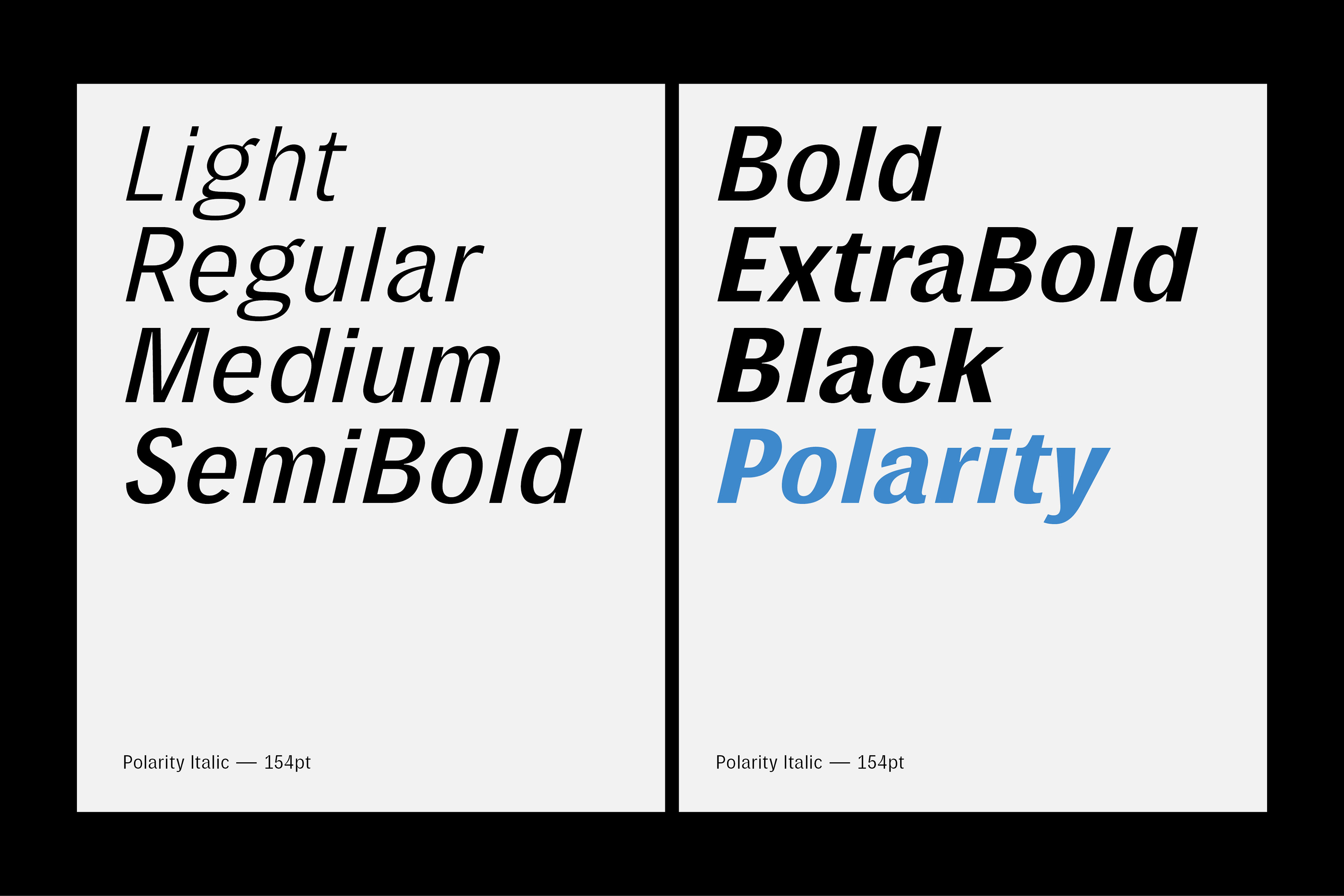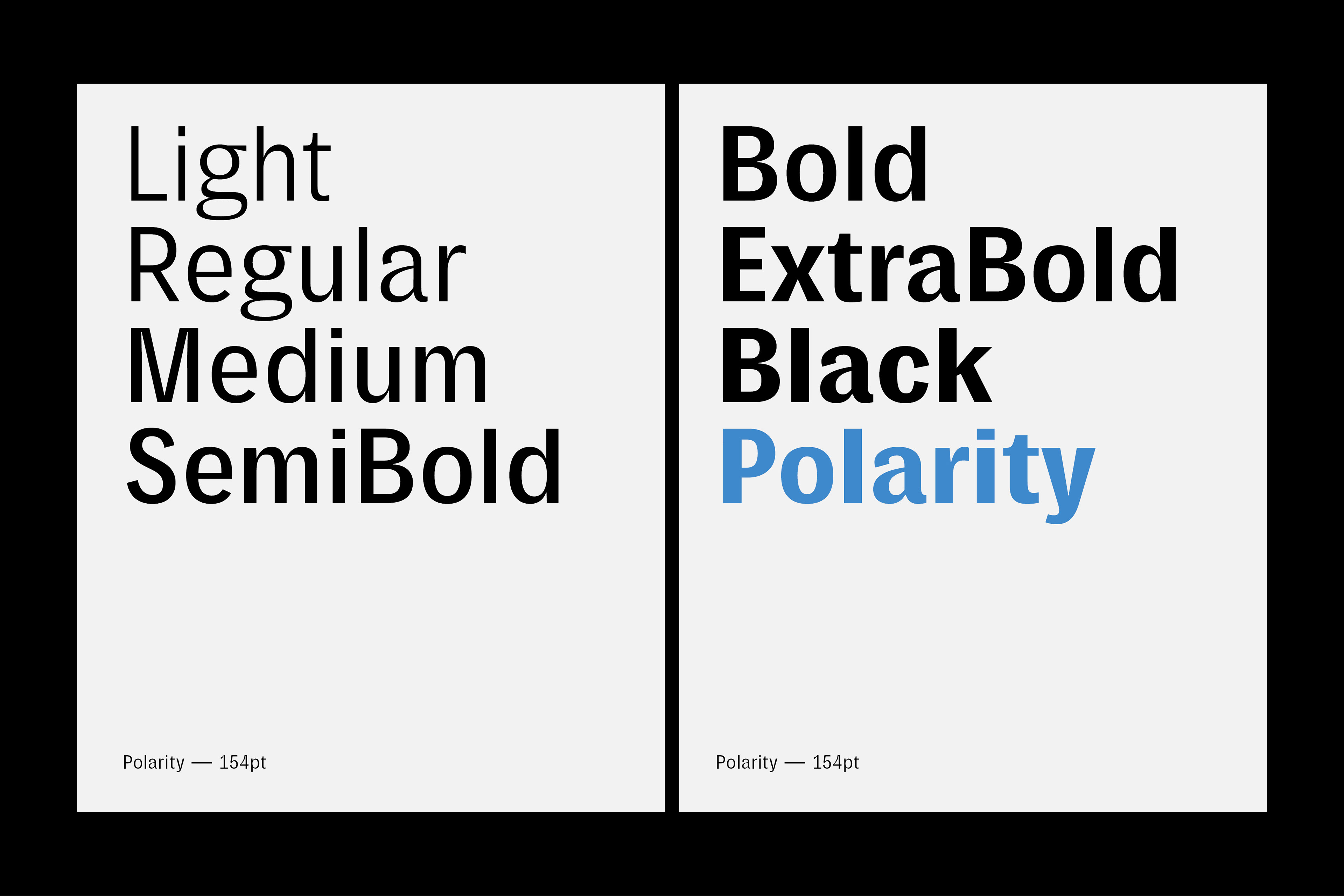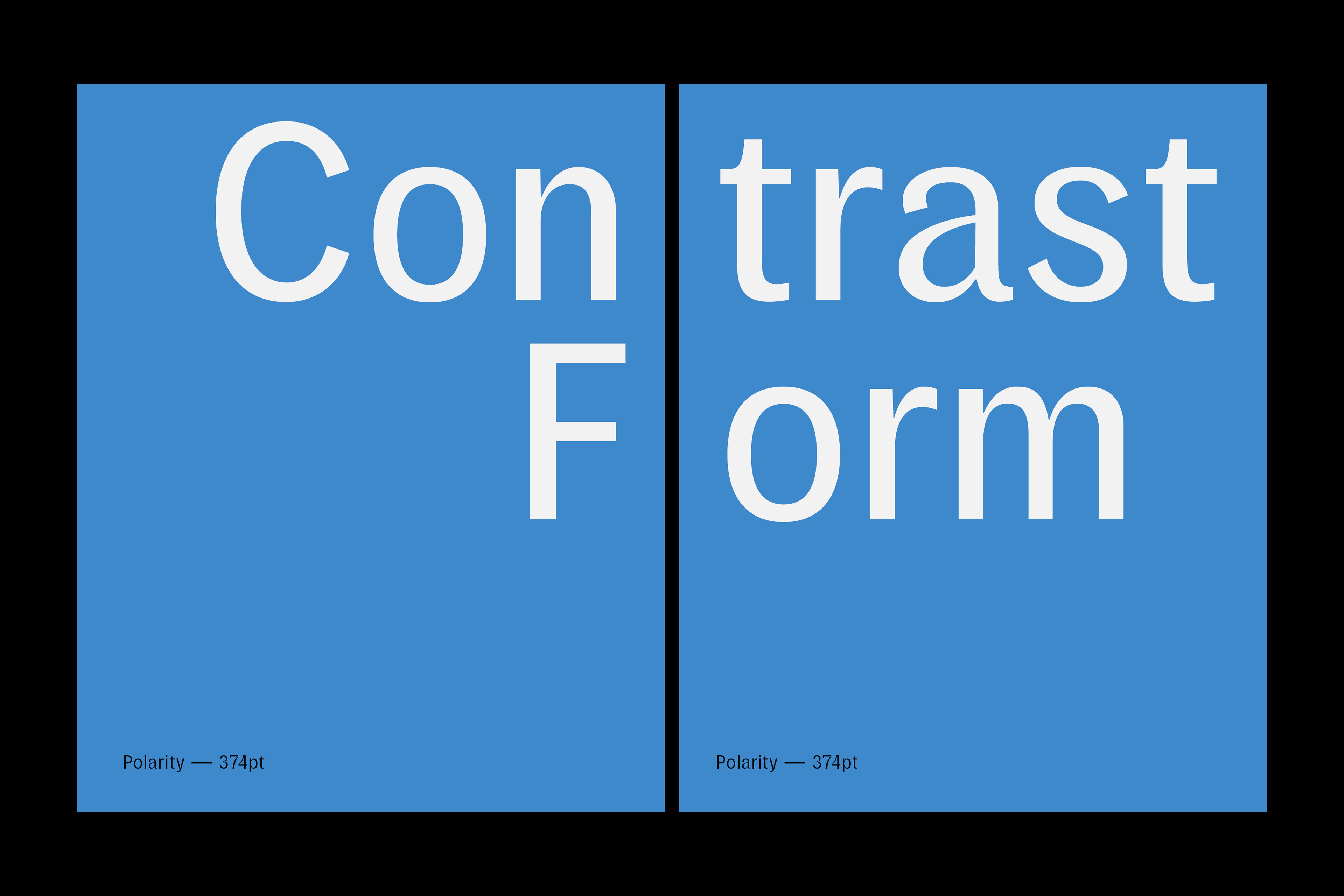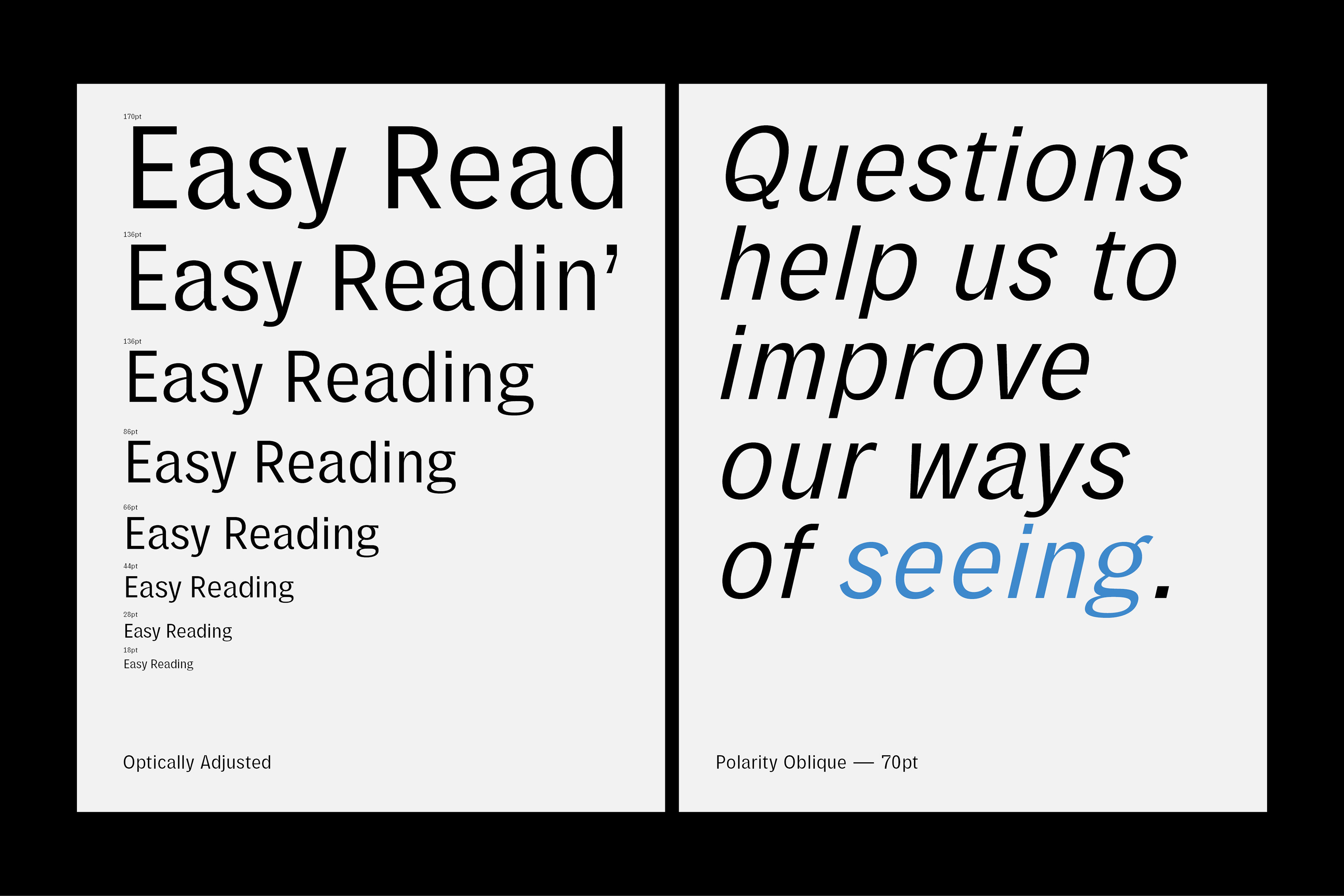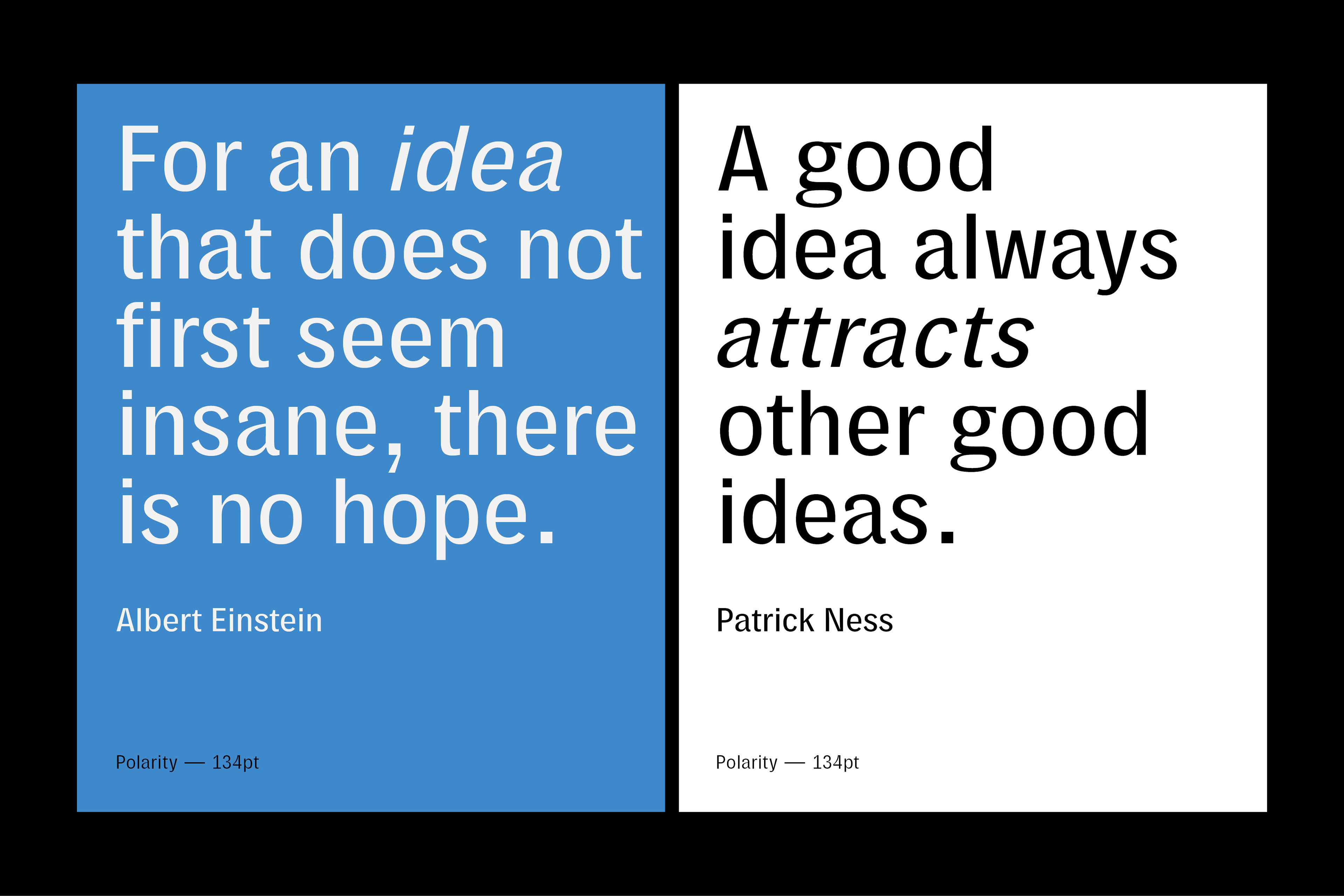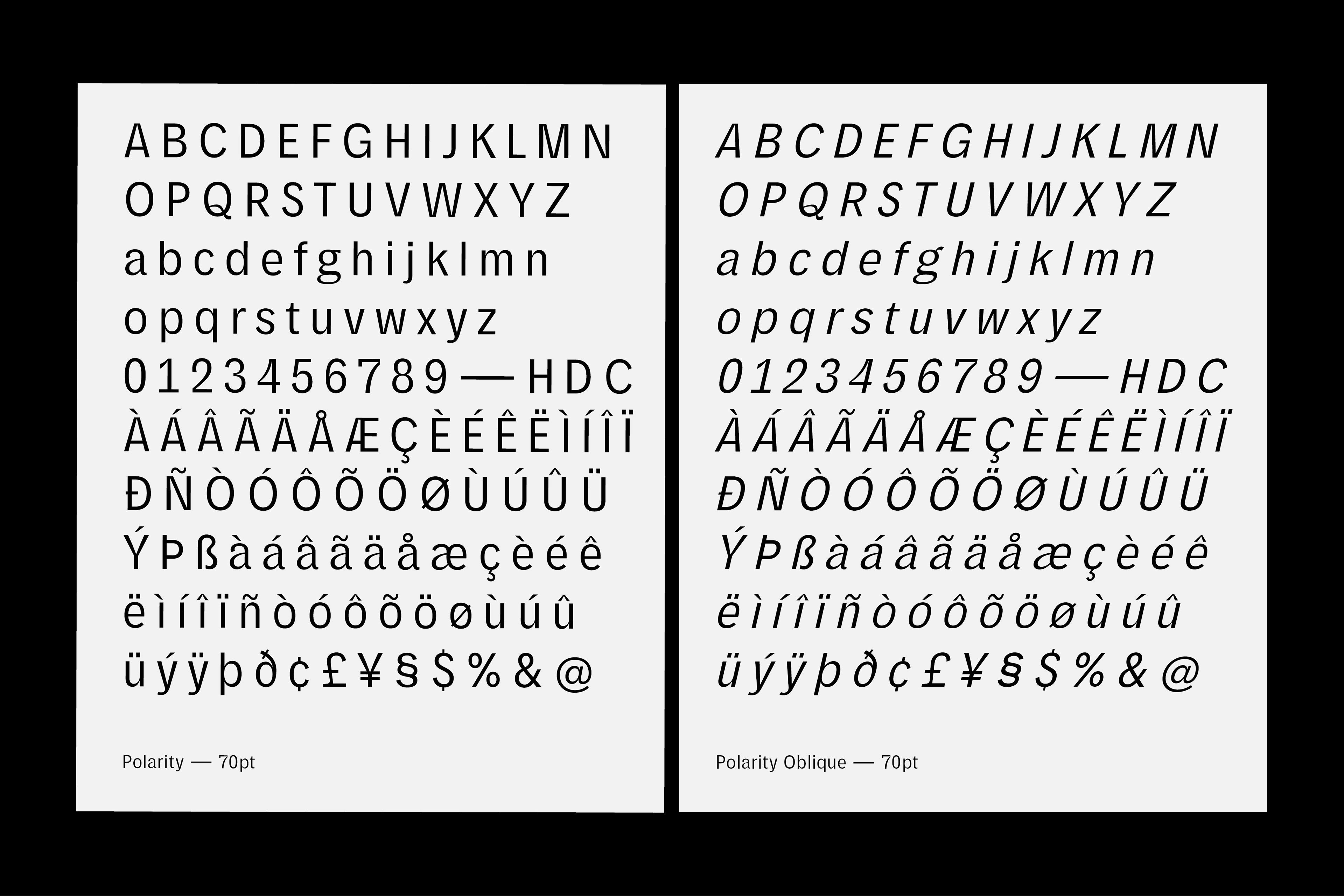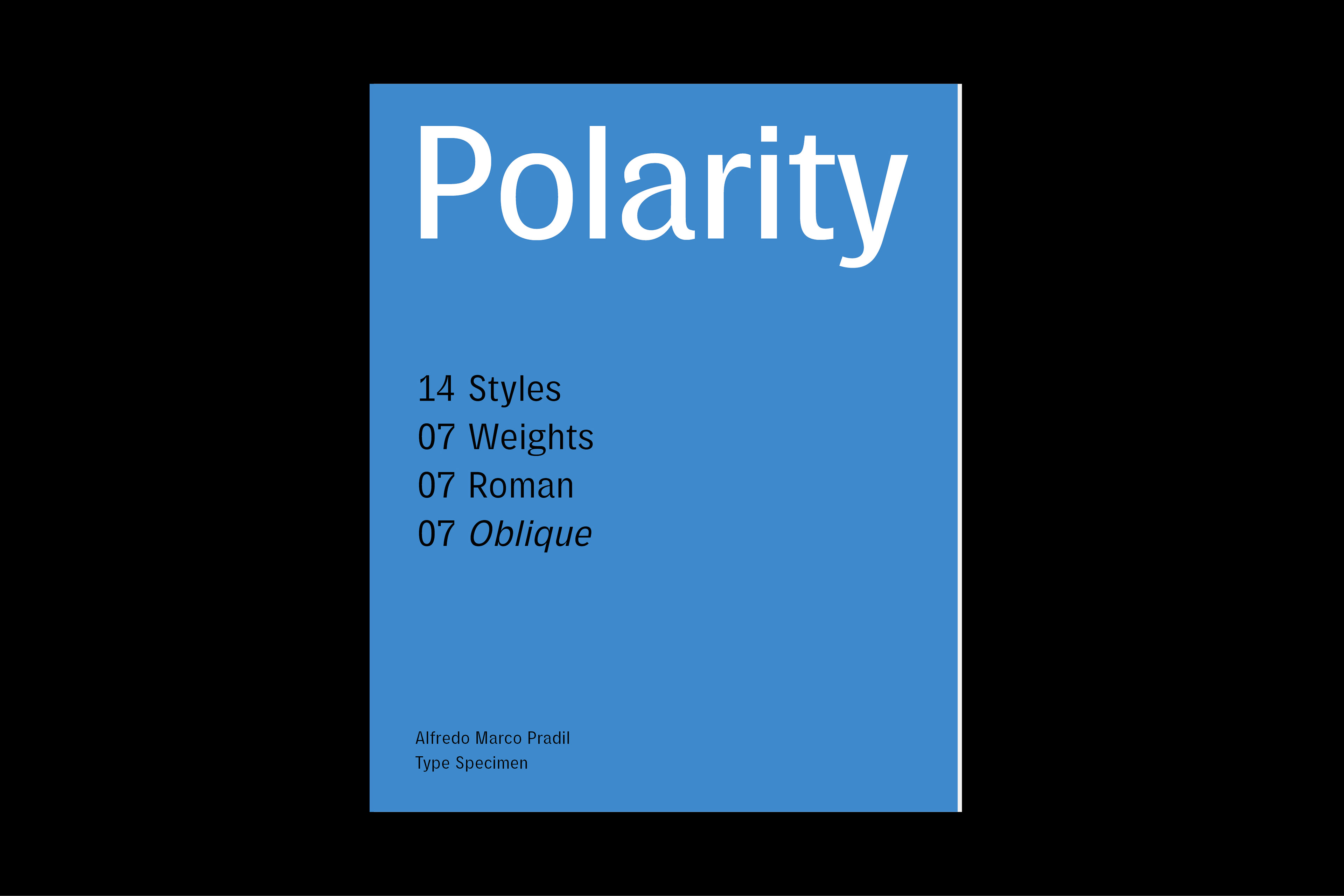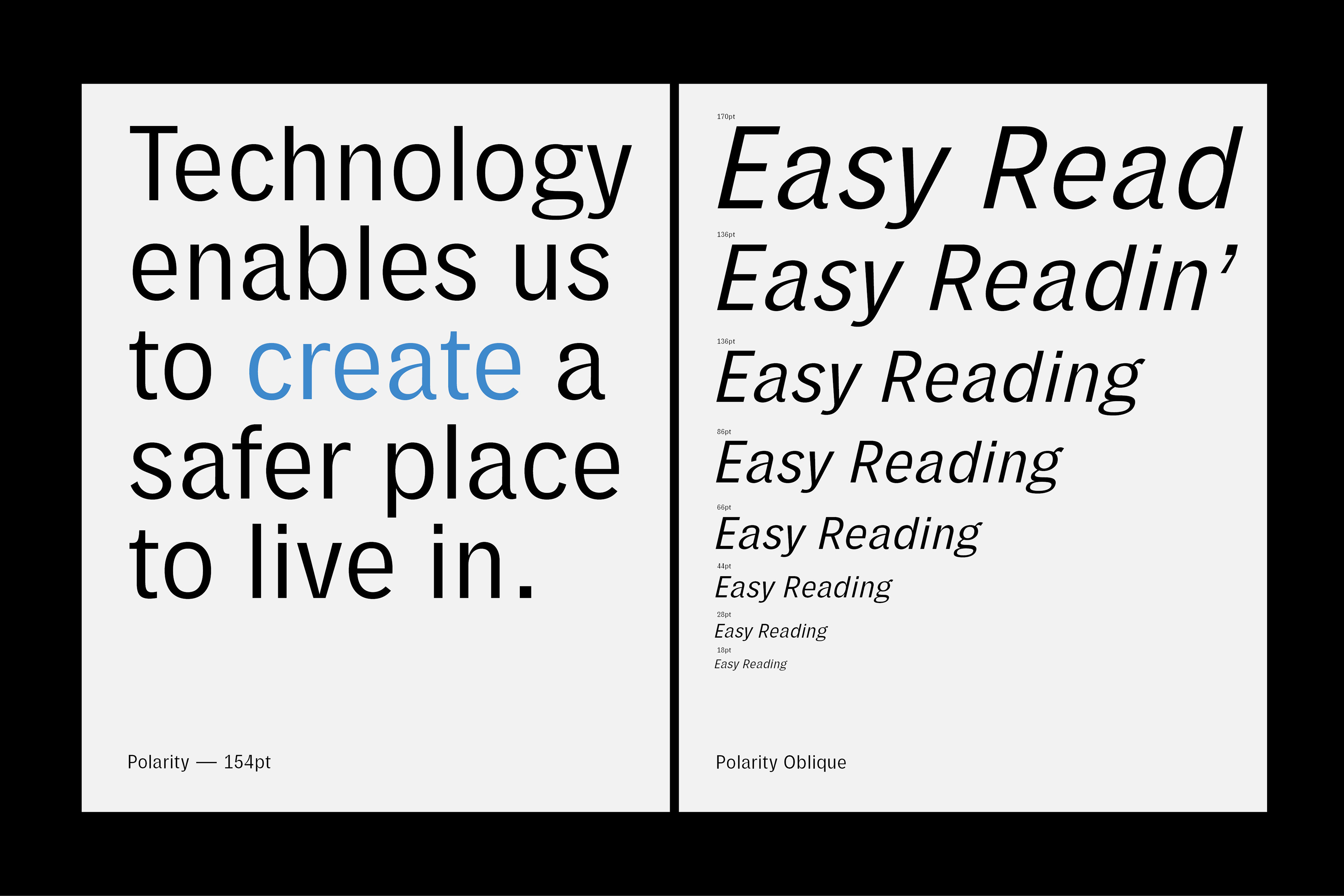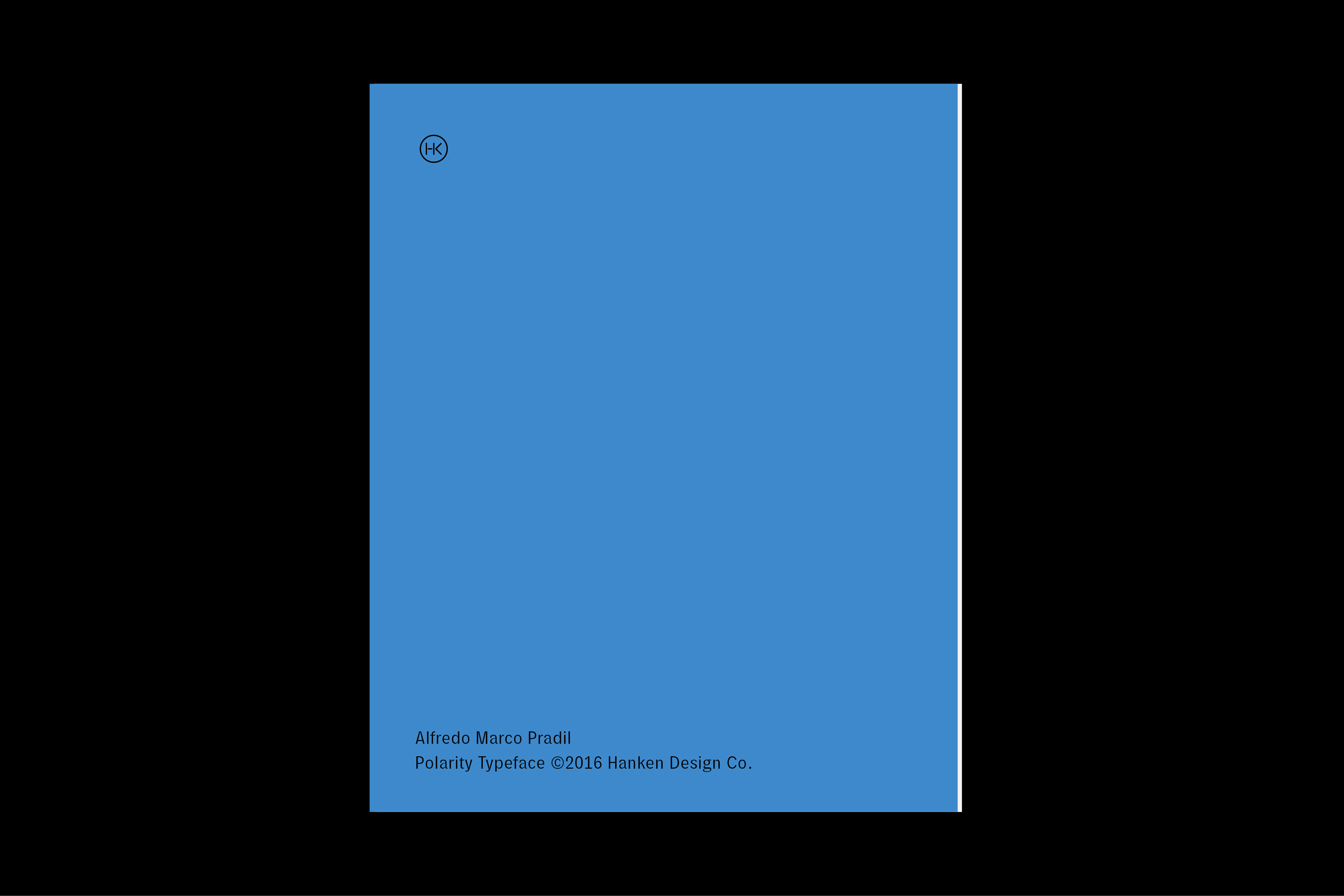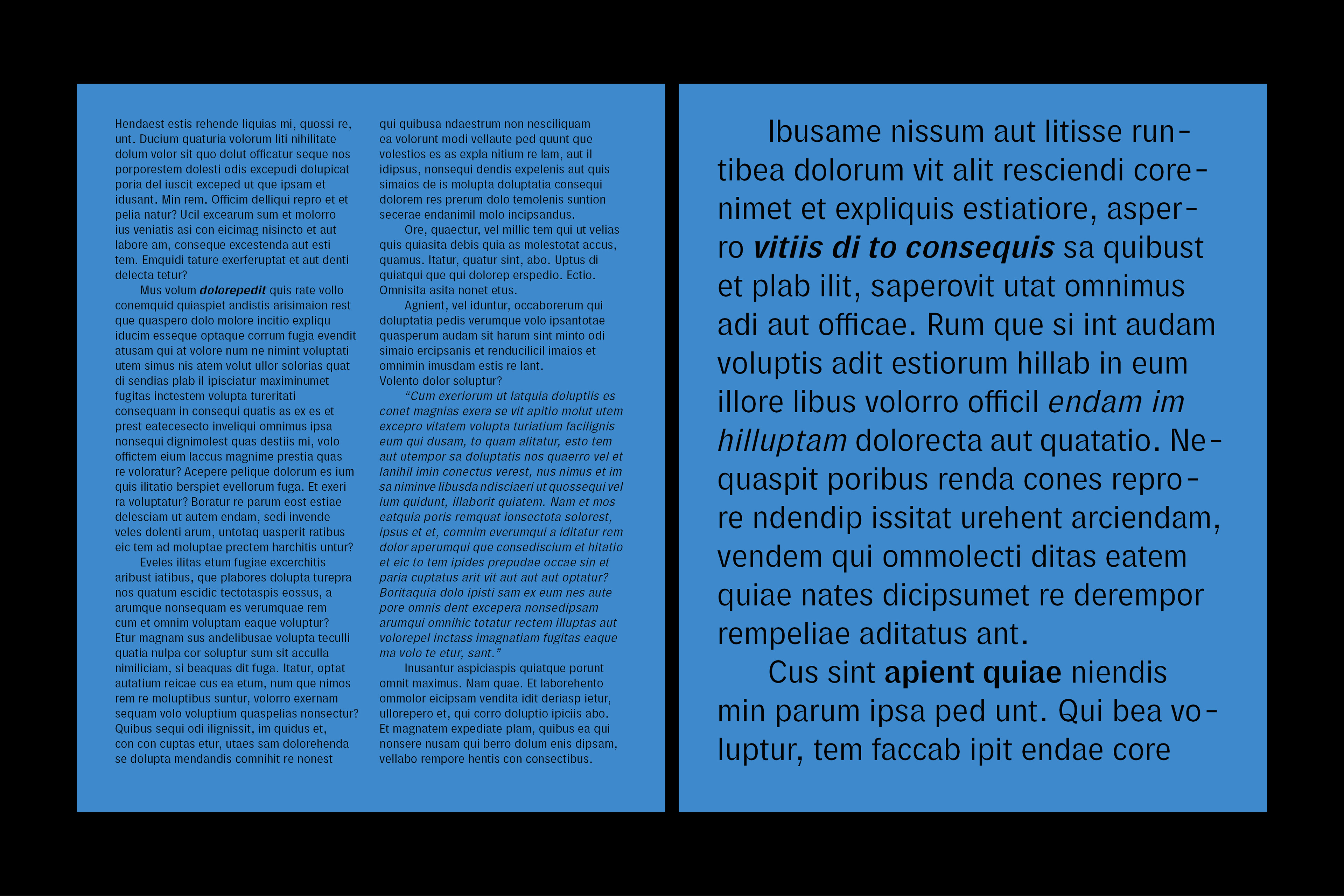
Polarity is a high-contrast sans serif typeface that is suitable for posters, books, catalogues, text heavy documents for print or screen. The contrast in the form makes it great for fast reading.